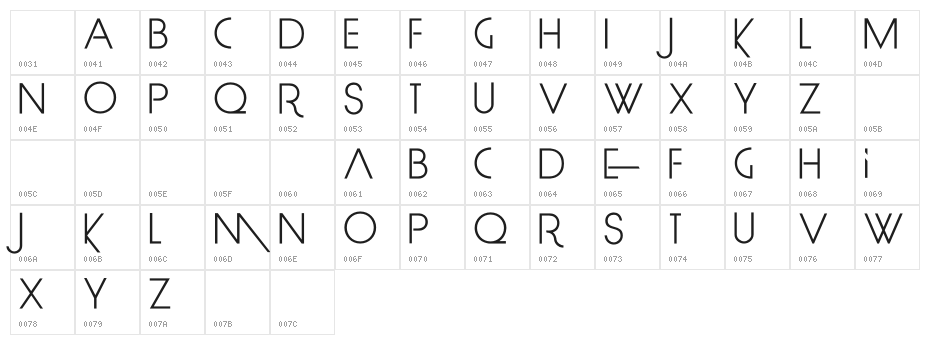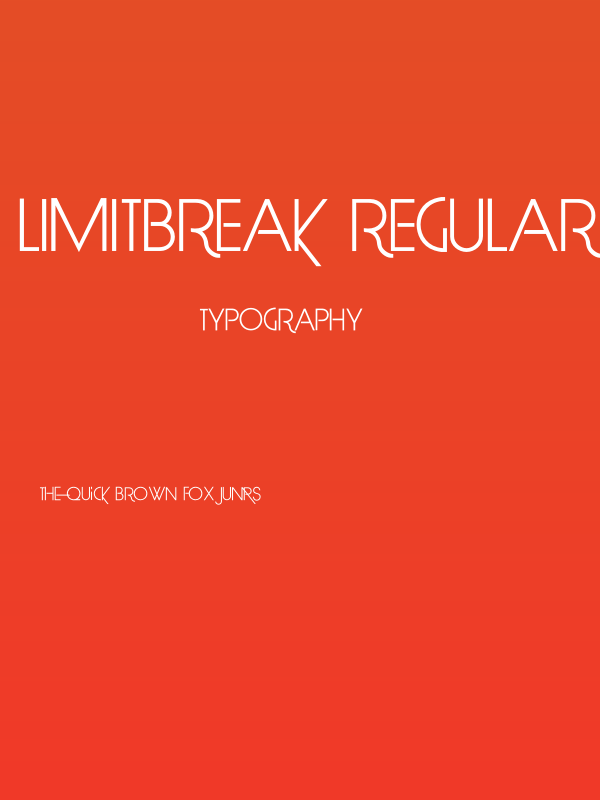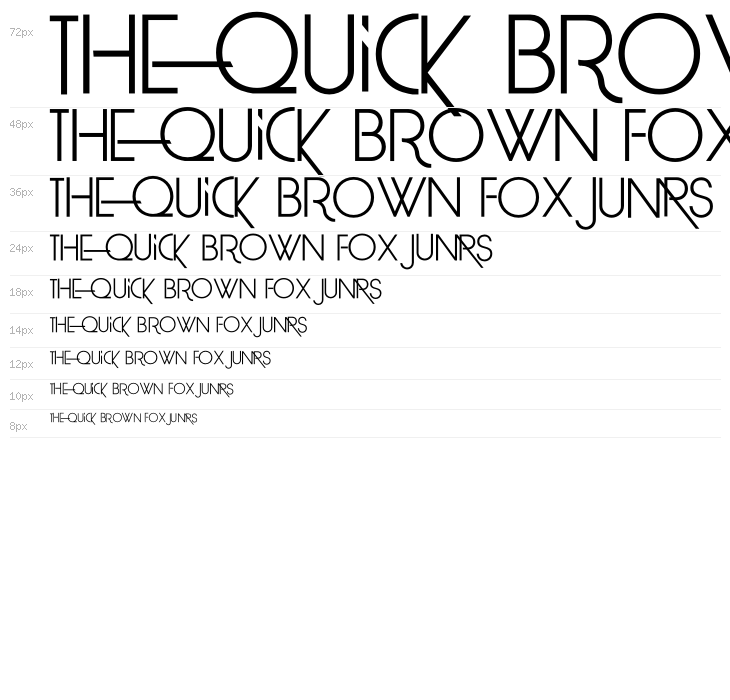
LimitBreak-Regular Font
LimitBreak-Regular Description
This font features a modern and geometric design with clean, straight lines and sharp angles. The characters are constructed with a consistent stroke width, giving it a uniform appearance. The uppercase letters have a futuristic feel, with some characters incorporating unique cuts and angles that add a distinctive flair. The overall look is sleek and minimalistic, making it suitable for contemporary design projects. The spacing between characters is balanced, ensuring readability while maintaining its stylish aesthetic.
| Proposed Projects | Ideal for branding, logos, headlines, and digital media projects that require a contemporary and stylish look. |